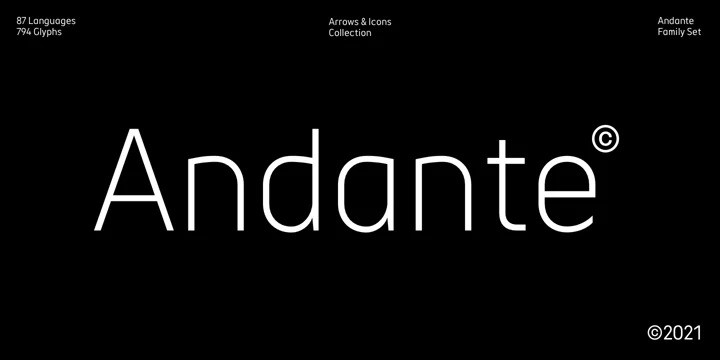
Andante Font
Andante Sans Serif Font
This is a cool, modern and techno looking sans serif font manufactured by Ckhans Fonts. It comes in 6 weights, 12 uprights and its matching Italic, so you can use them to your heart’s content, in each of which there are more than 883+ glyphs.
Andante comprises 24 fonts, consisting of three distinct optical sizes: Display. Each one has been carefully tailored to the demands of its size. The larger Display versions are drawn to show off the subtlety of Andante and spaced with headlines in mind, while the Text sizes focus on legibility, using robust strokes and comfortably loose spaces. In the typeface, each weight includes extended language support, icons, fractions, tabular figures, arrows, ligatures and more.
Perfectly suited for graphic design and any display use. It could easily work for branding, web, signage, corporate as well as for editorial design. documents and folders, mobile interface.